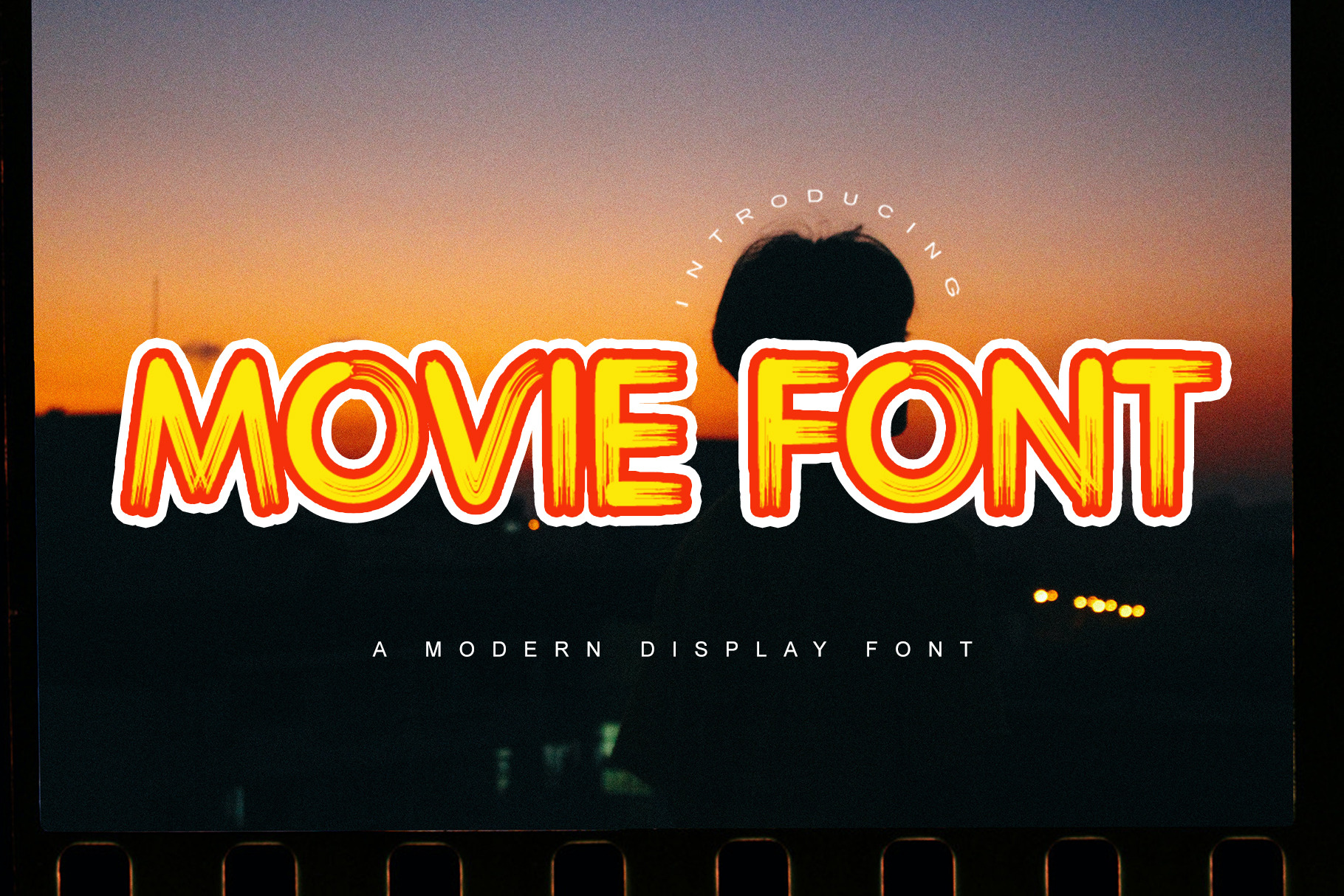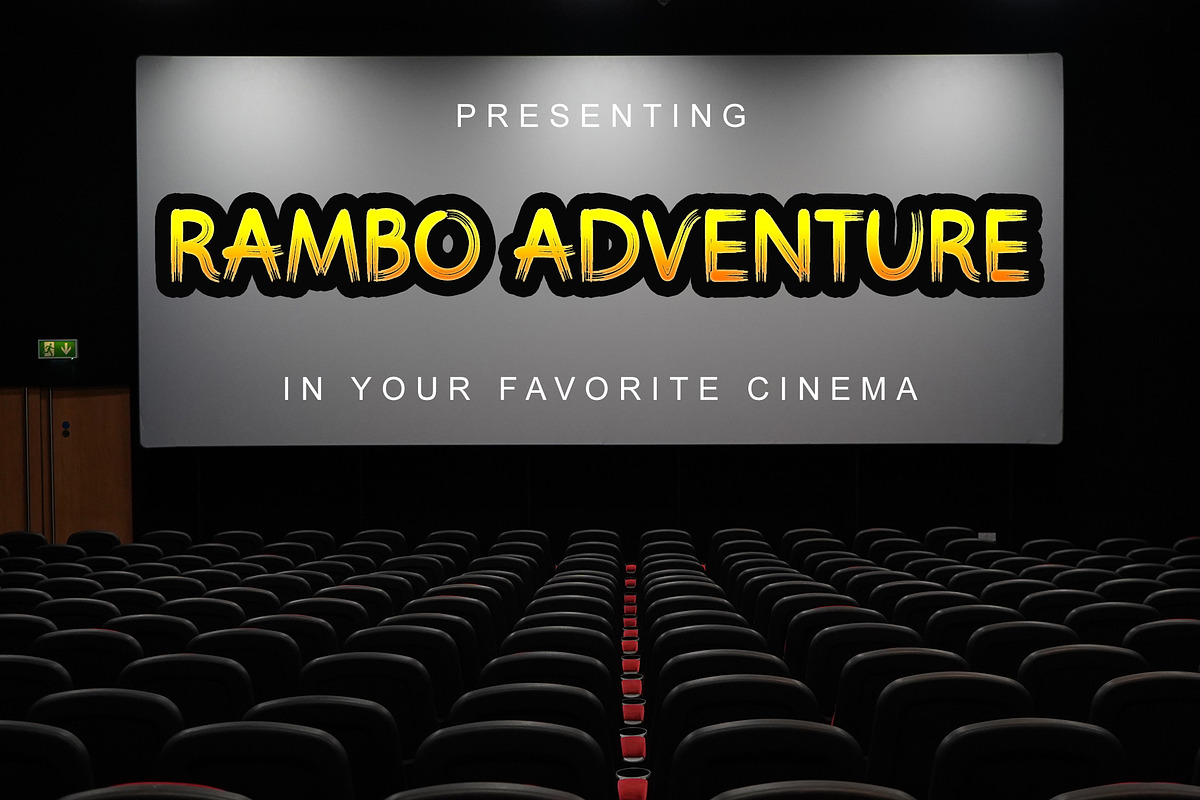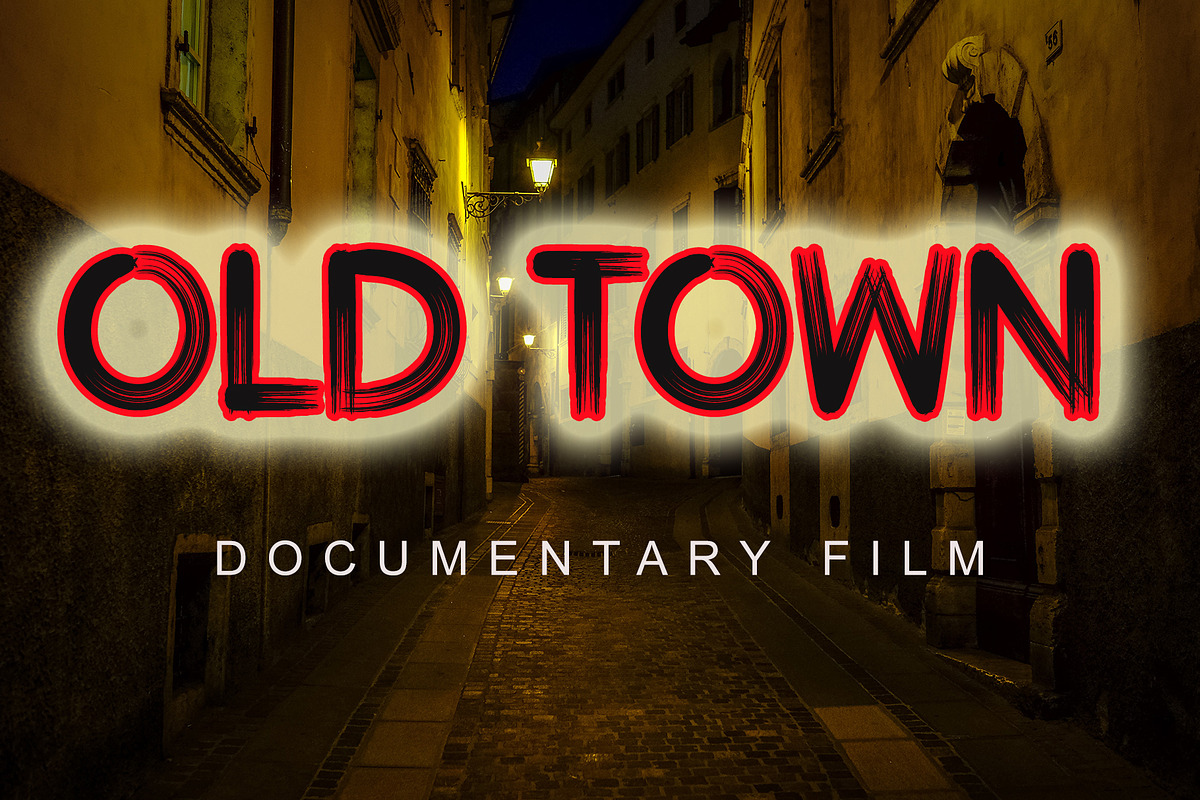
Movie Font – Dynamic Brush Typeface
Bring the energy of the big screen to your designs with Movie Font – a bold brush-style typeface packed with cinematic flair and expressive character. Handcrafted for high-impact visuals, this font channels the movement and emotion of movie posters, action scenes, and animated titles.
With its rough strokes and dynamic flow, Movie Font is perfect for film titles, cartoon intros, comic books, YouTube thumbnails, and more. Whether you're promoting a blockbuster, launching a product, or creating a social media campaign, Movie Font gives your text the bold personality it needs to stand out.
Movie posters & film branding
Cartoon & comic book titles
YouTube thumbnails & channel intros
Instagram, Facebook & Twitter graphics
Entertainment brands & TV shows
Startup logos & company names
Product packaging, event flyers, and more
Handcrafted Brush Style – Authentic, textured strokes that feel hand-painted
Cinematic Presence – Perfect for dramatic, action-packed, or animated visuals
Screen-Ready – Crisp display for video, mobile, and large-format layouts
Creative Versatility – Works across film, media, branding, and digital design